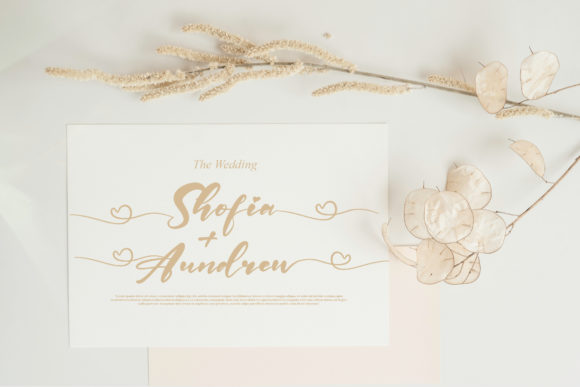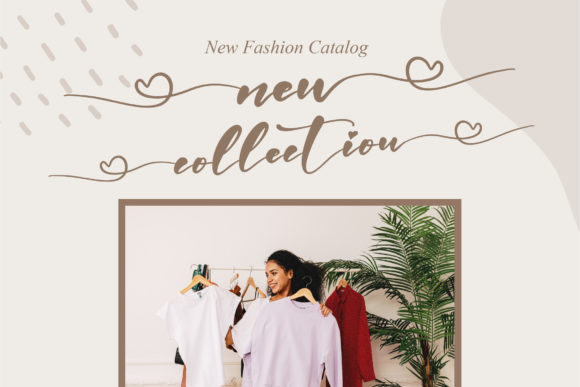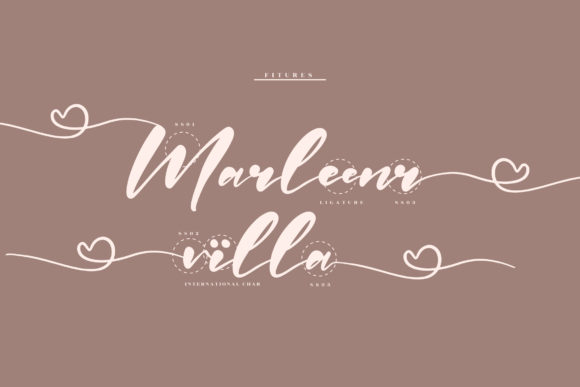
About Belinta Cinta Font
Belinta Cinta is an exquisite handwritten font, masterfully designed to become a true favorite. It maintains its classy calligraphic influences while feeling contemporary and fresh. This font is PUA encoded which means you can access all of the amazing glyphs and ligatures with ease!